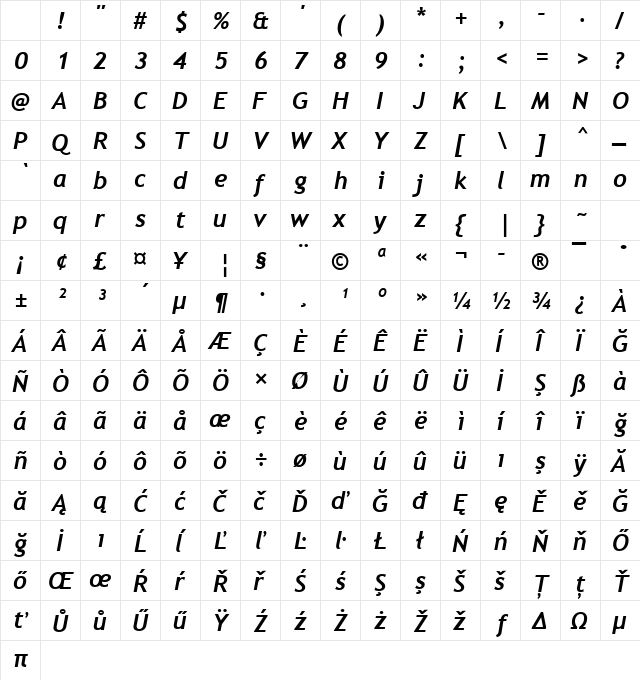
Trebuchet MS Digiscream is a composed and adaptable typeface that performs quietly and consistently across a wide range of design contexts. The slanted form adds forward momentum and visual energy. Its bold stroke weight gives it real presence on the page.
Pro Tip: Use Trebuchet MS Digiscream for emphasis, pull quotes, and subheadings where its slanted energy can add rhythm to the layout.